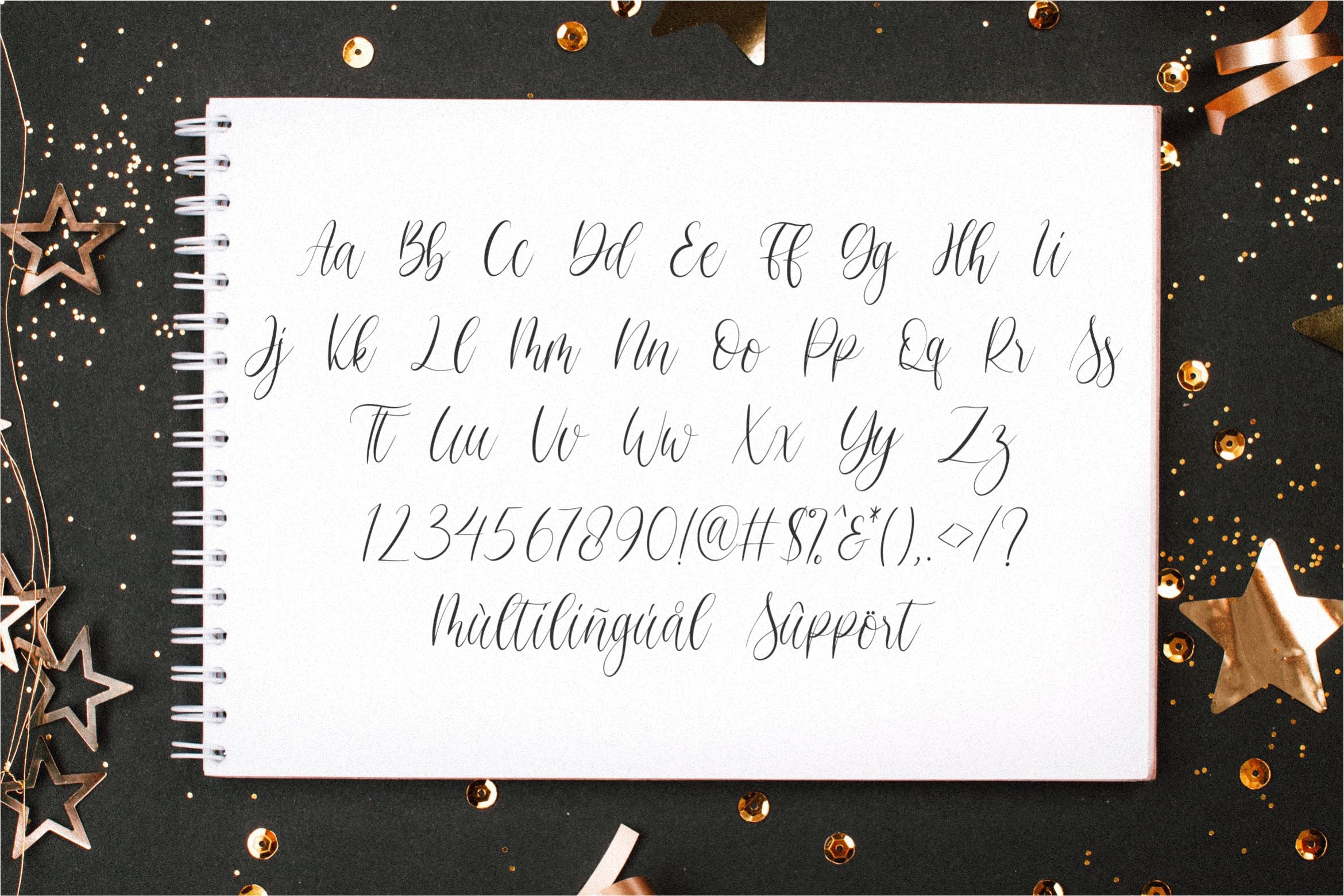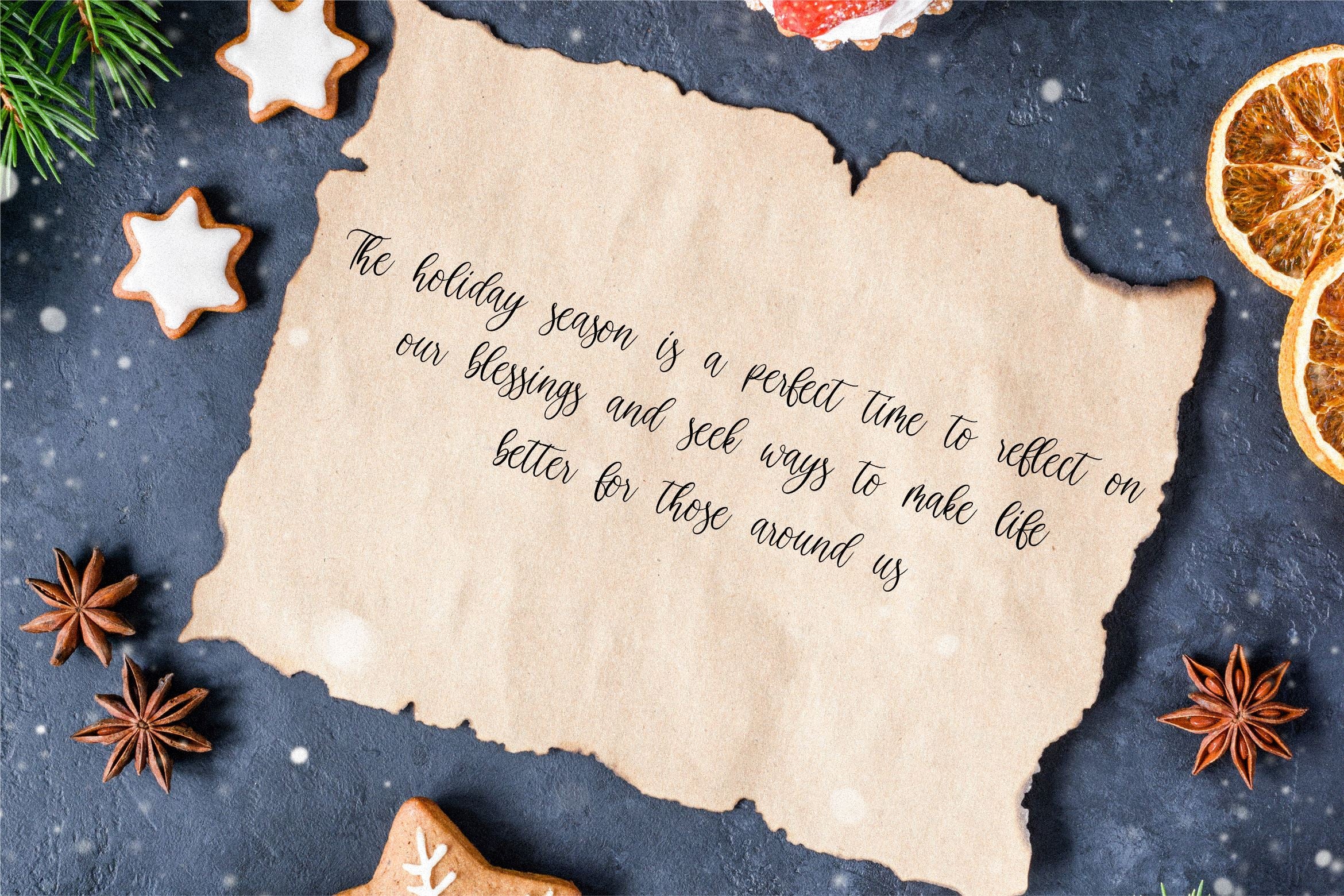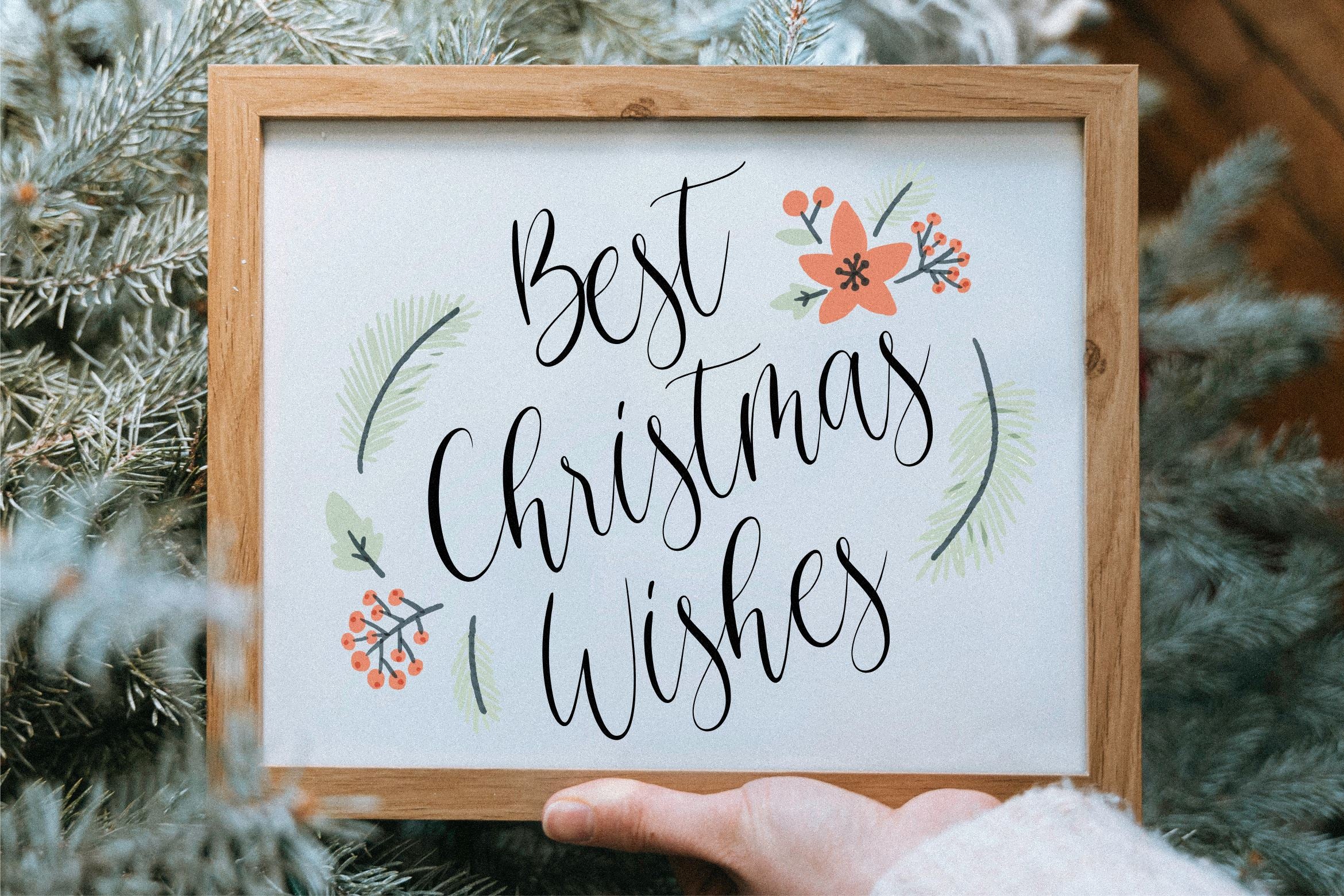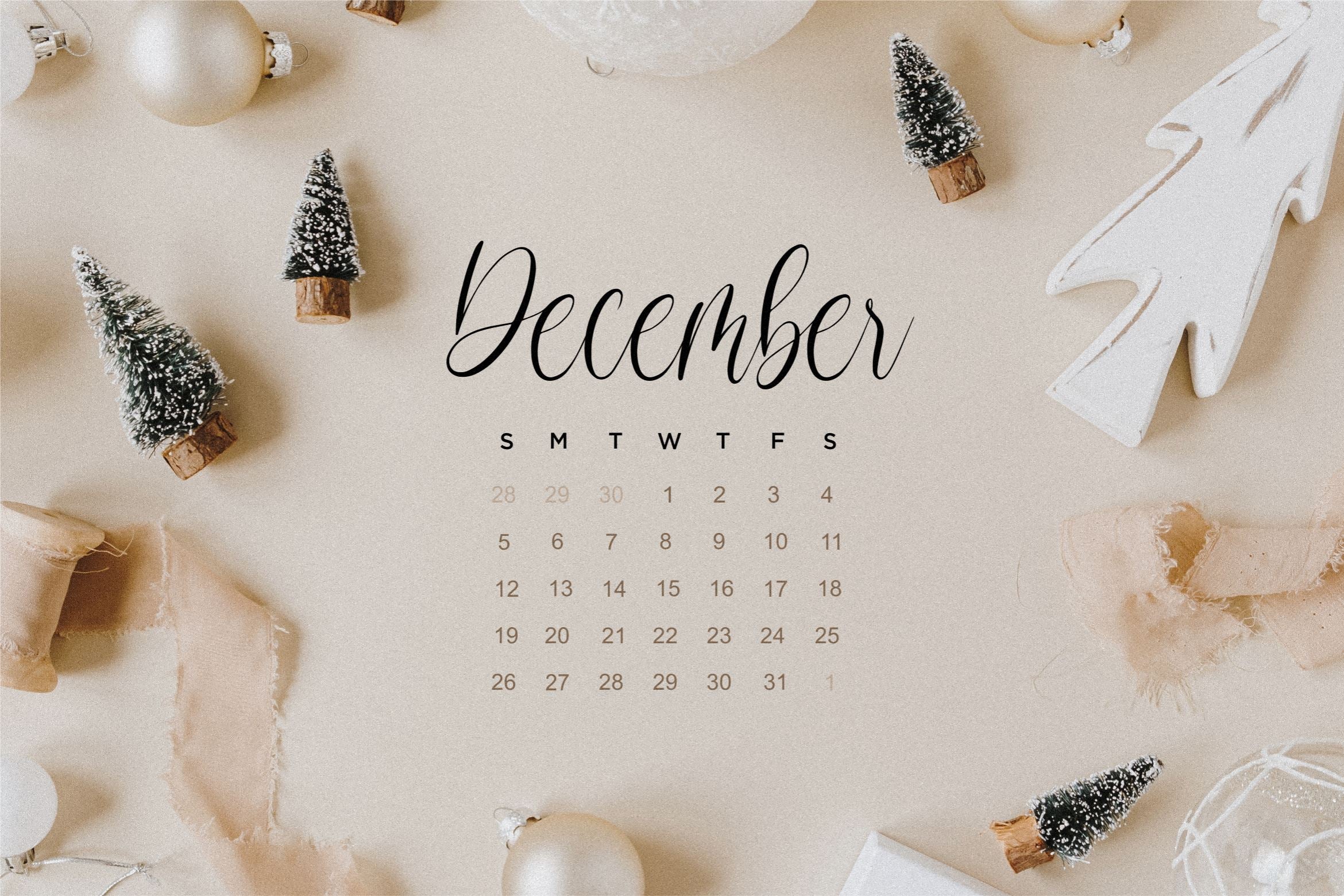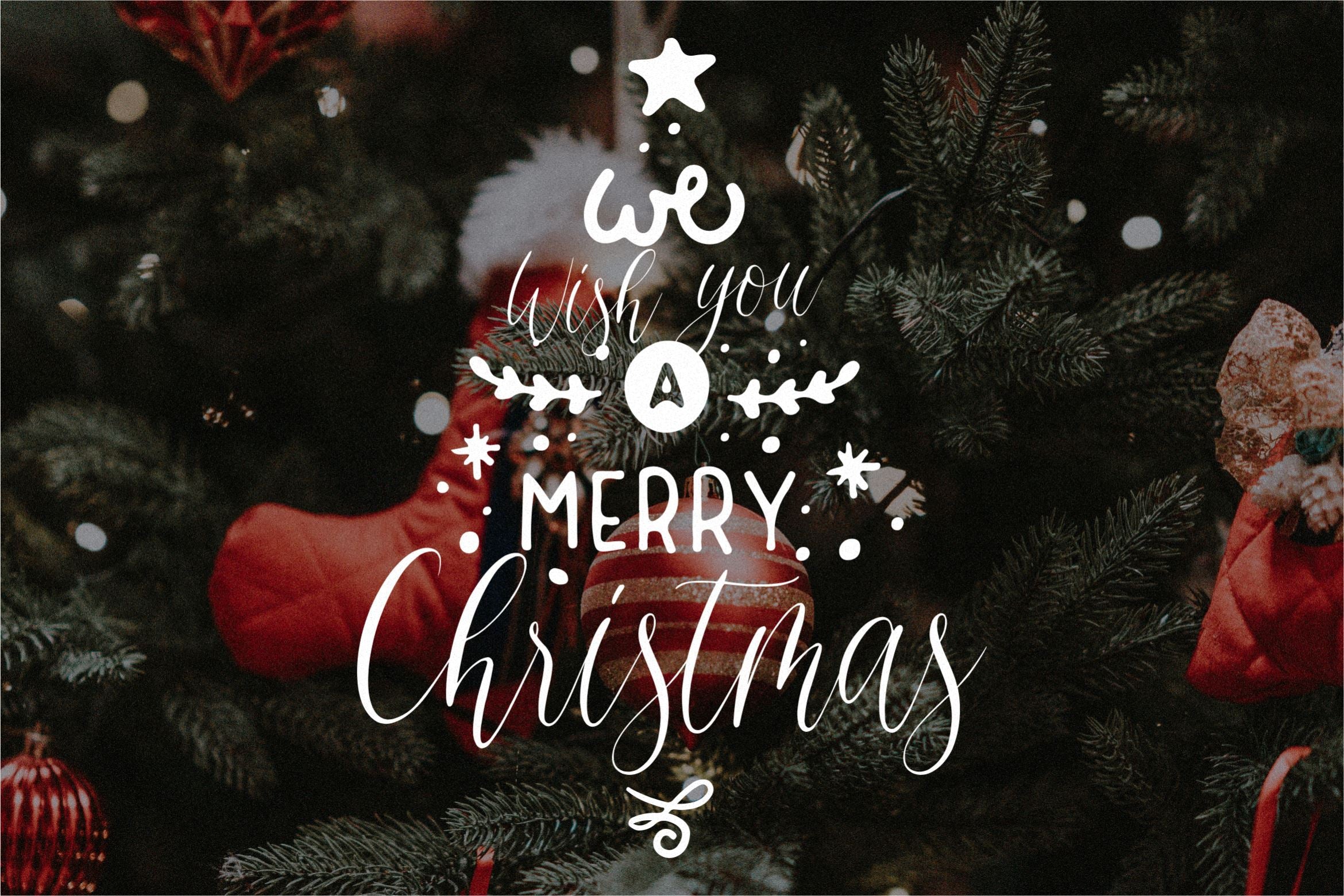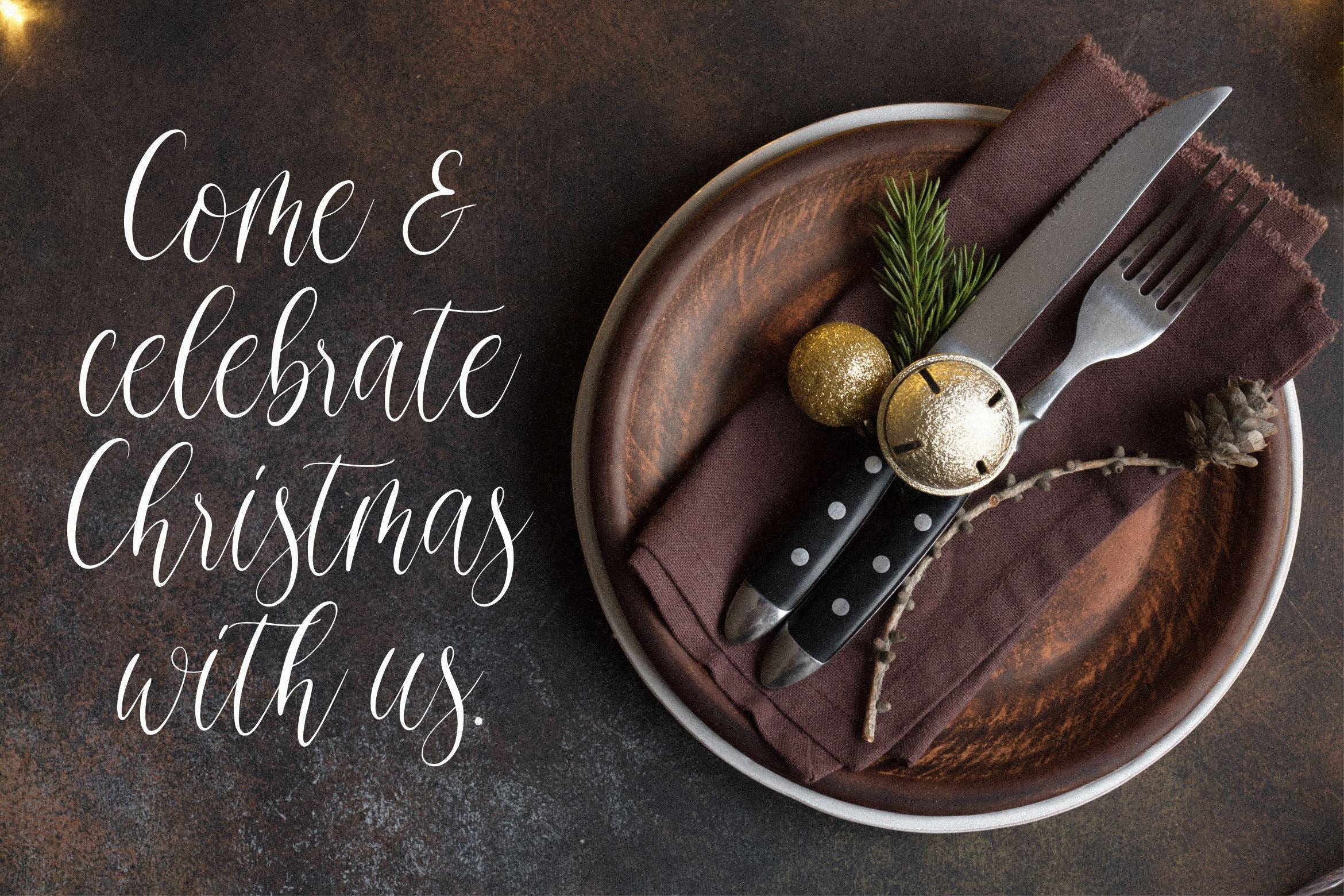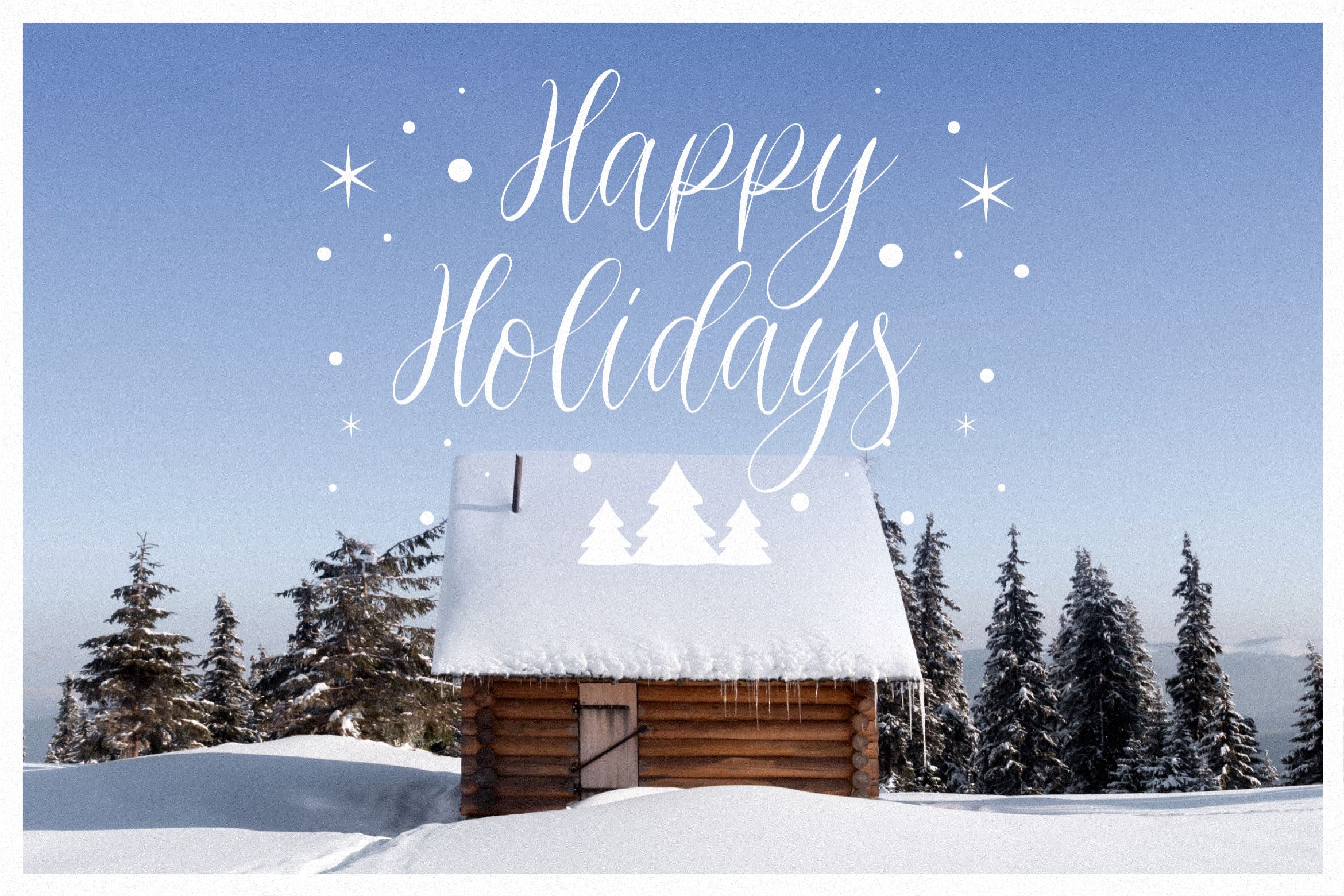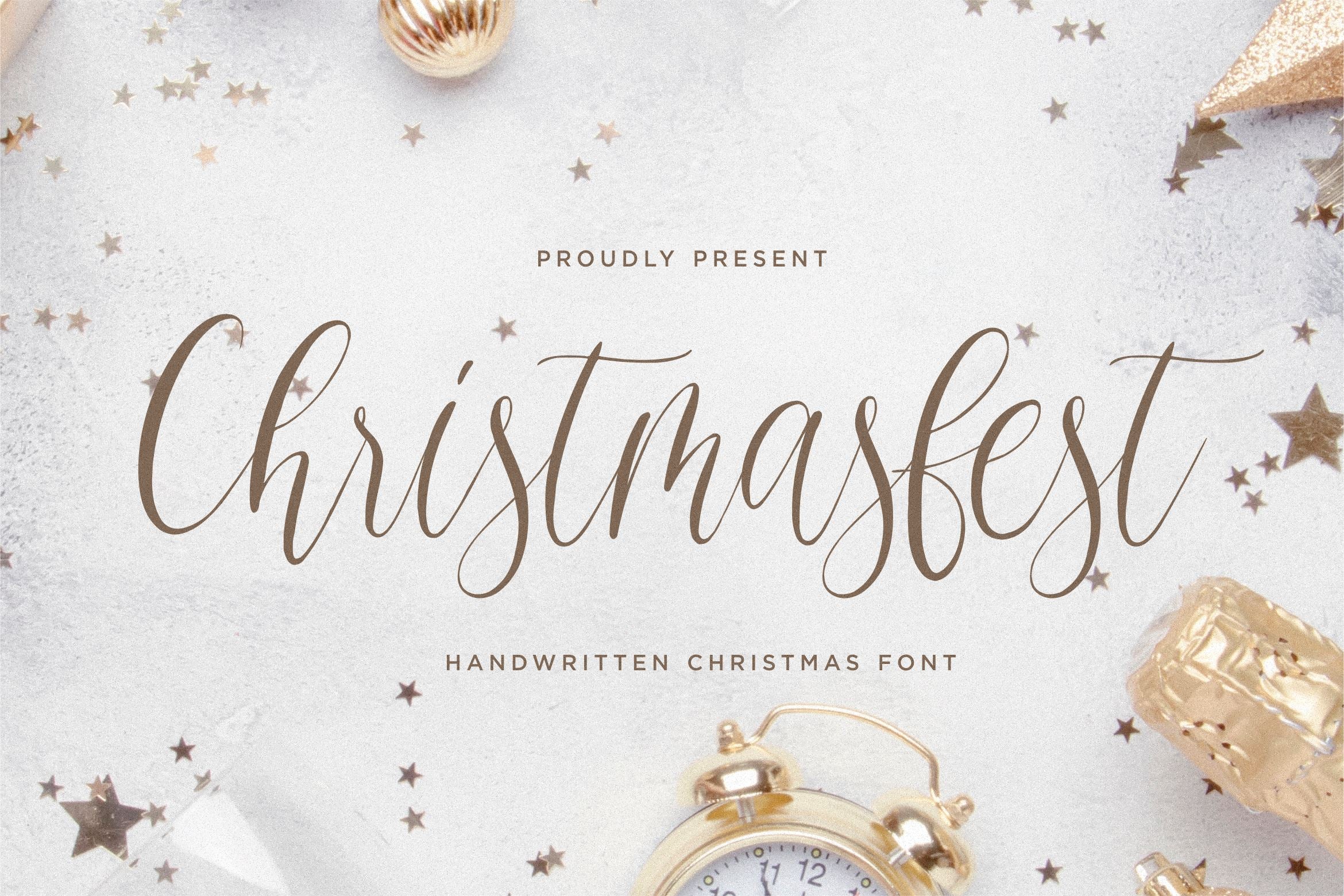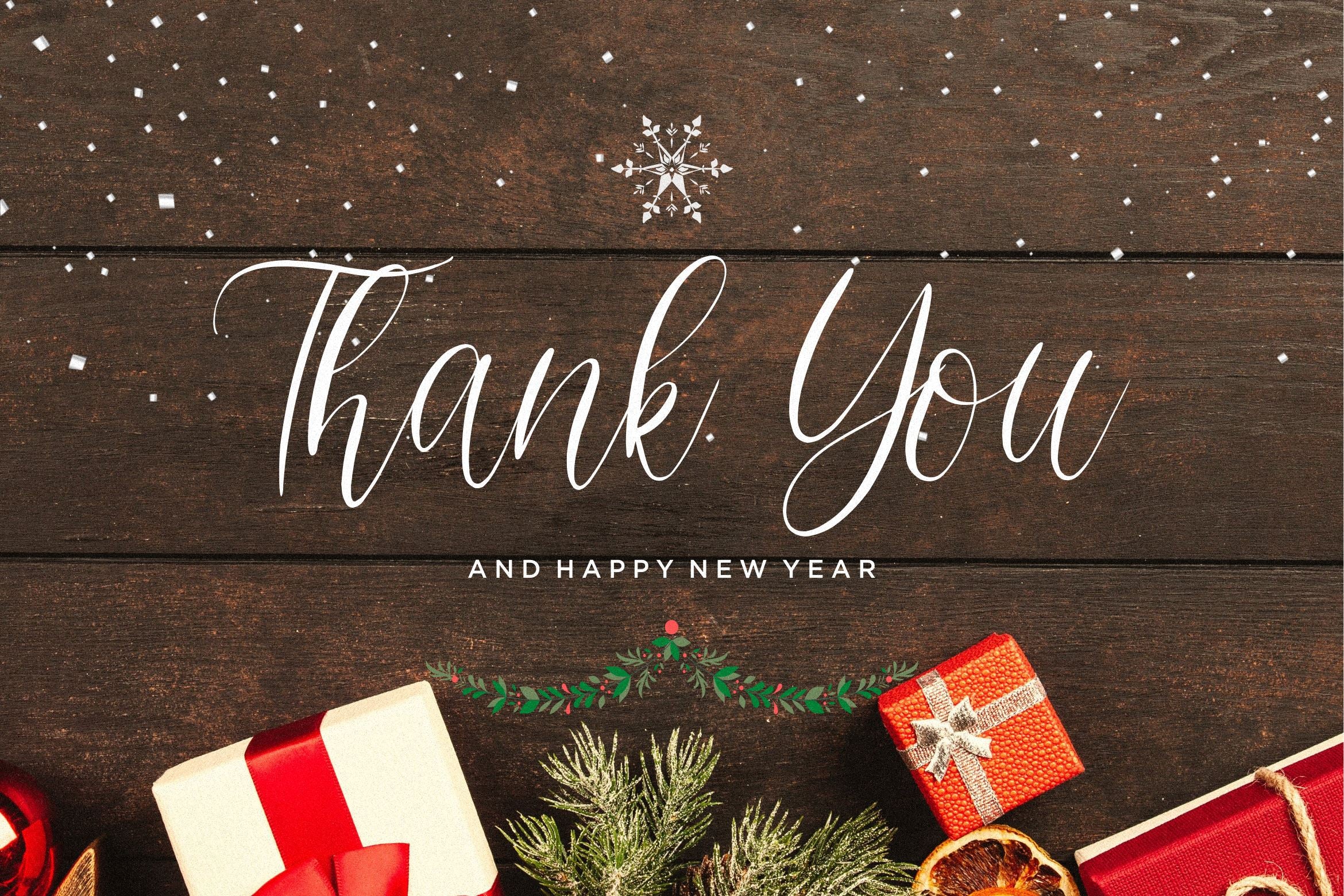
Christmasfest
Introducing by Qwrtype Proudly Present, Christmasfest is a Handwritten Christmas Font Christmasfest is perfect for product packaging, branding project, megazine, social media, wedding, or just used to express words above the background. This font includes OTF, TTF & Woff, Christmasfest also multilingual support. Enjoy the font, feel free to comment or feedback, send me PM or email. Thank you!